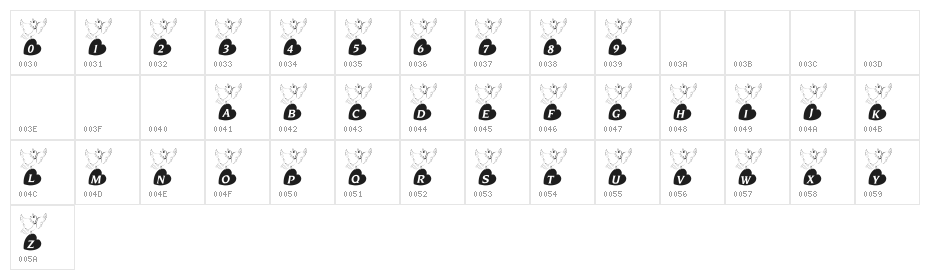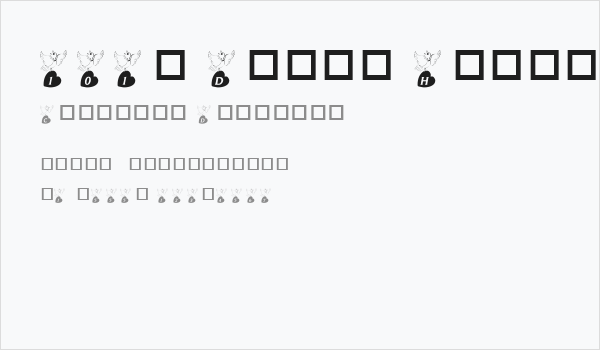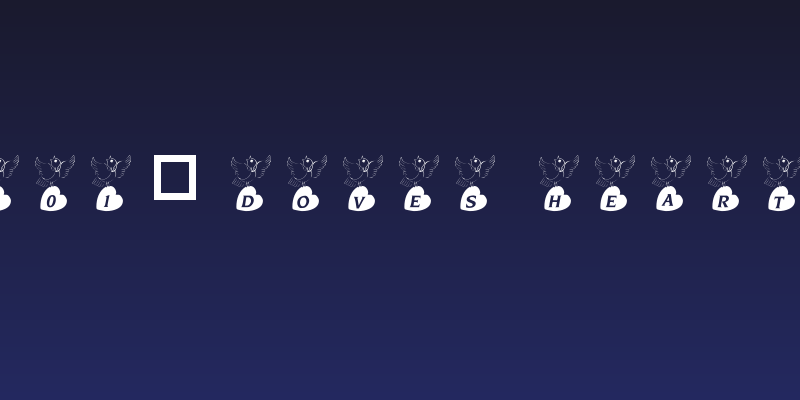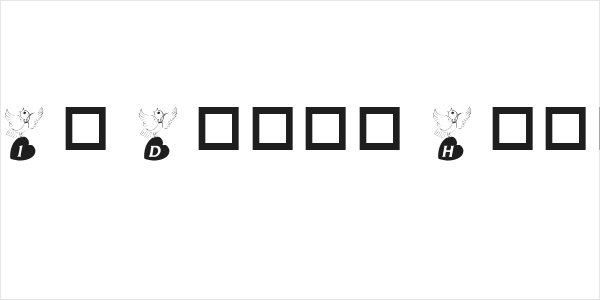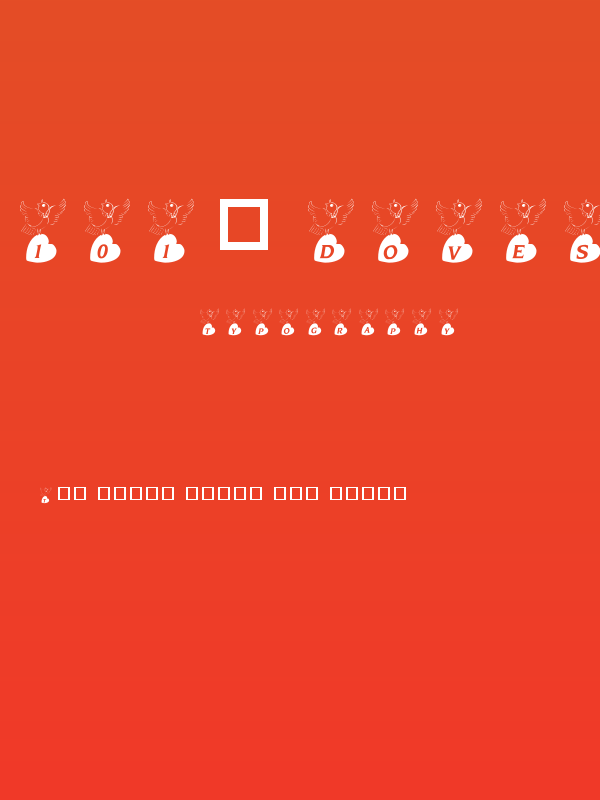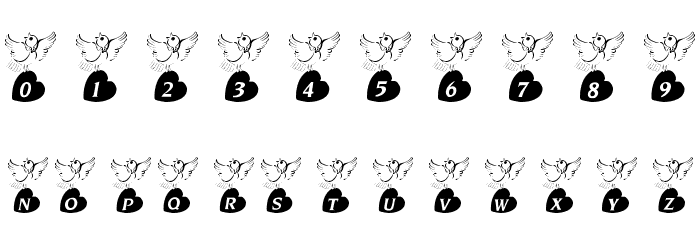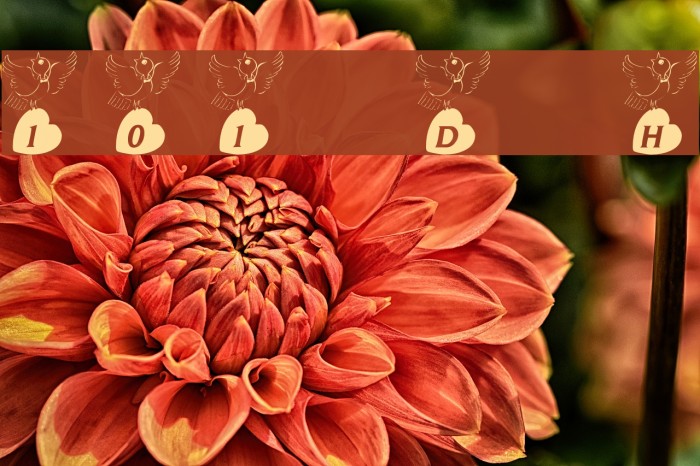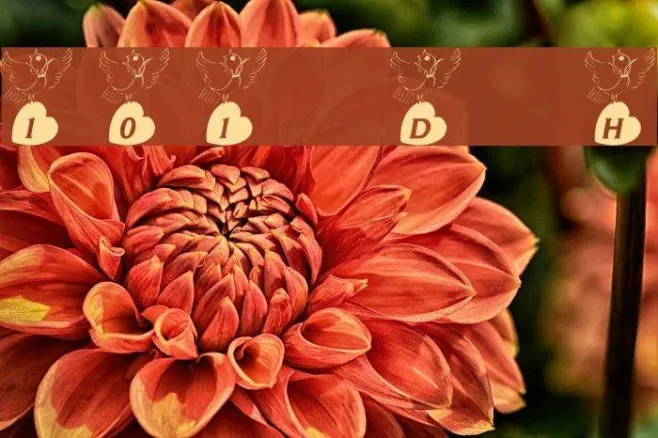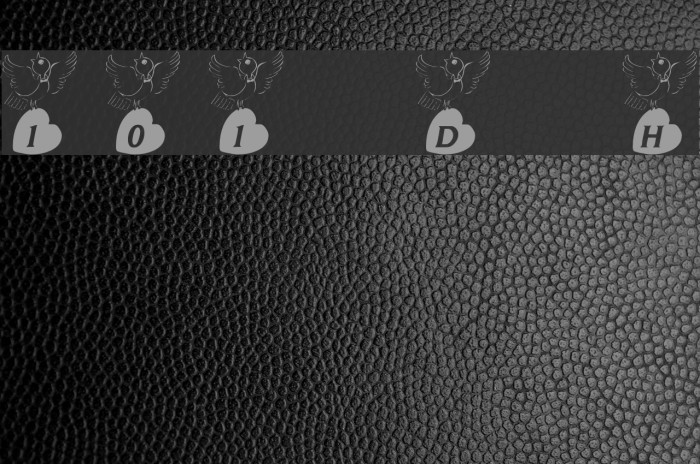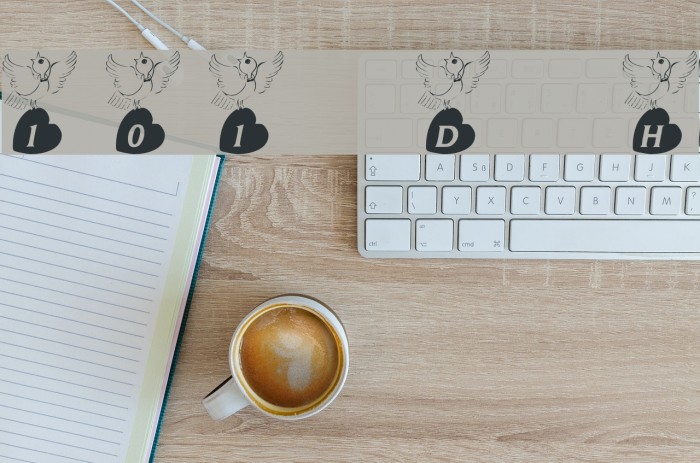
101! Doves Heart Font
101! Doves Heart Description
This decorative font features each character enclosed within a heart shape, accompanied by a detailed illustration of a dove above it. The letters and numbers are bold and prominently displayed, creating a strong visual impact. The combination of the heart and dove elements gives the font a romantic and whimsical feel, making it ideal for designs that require a touch of elegance and charm. The characters are evenly spaced, ensuring readability while maintaining the decorative nature of the font. The overall style is unique and eye-catching, suitable for special occasions or themed projects.
| Proposed Projects | Ideal for wedding invitations, romantic greeting cards, Valentine's Day promotions, and decorative posters. |